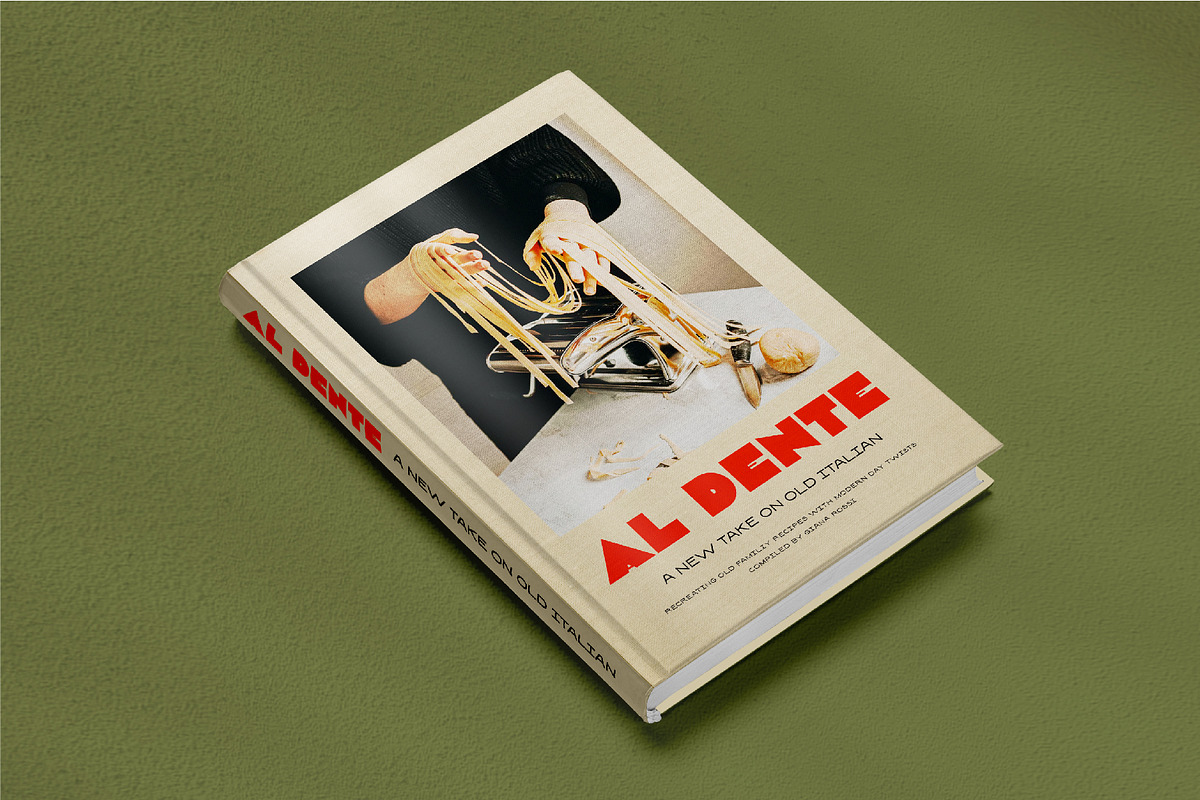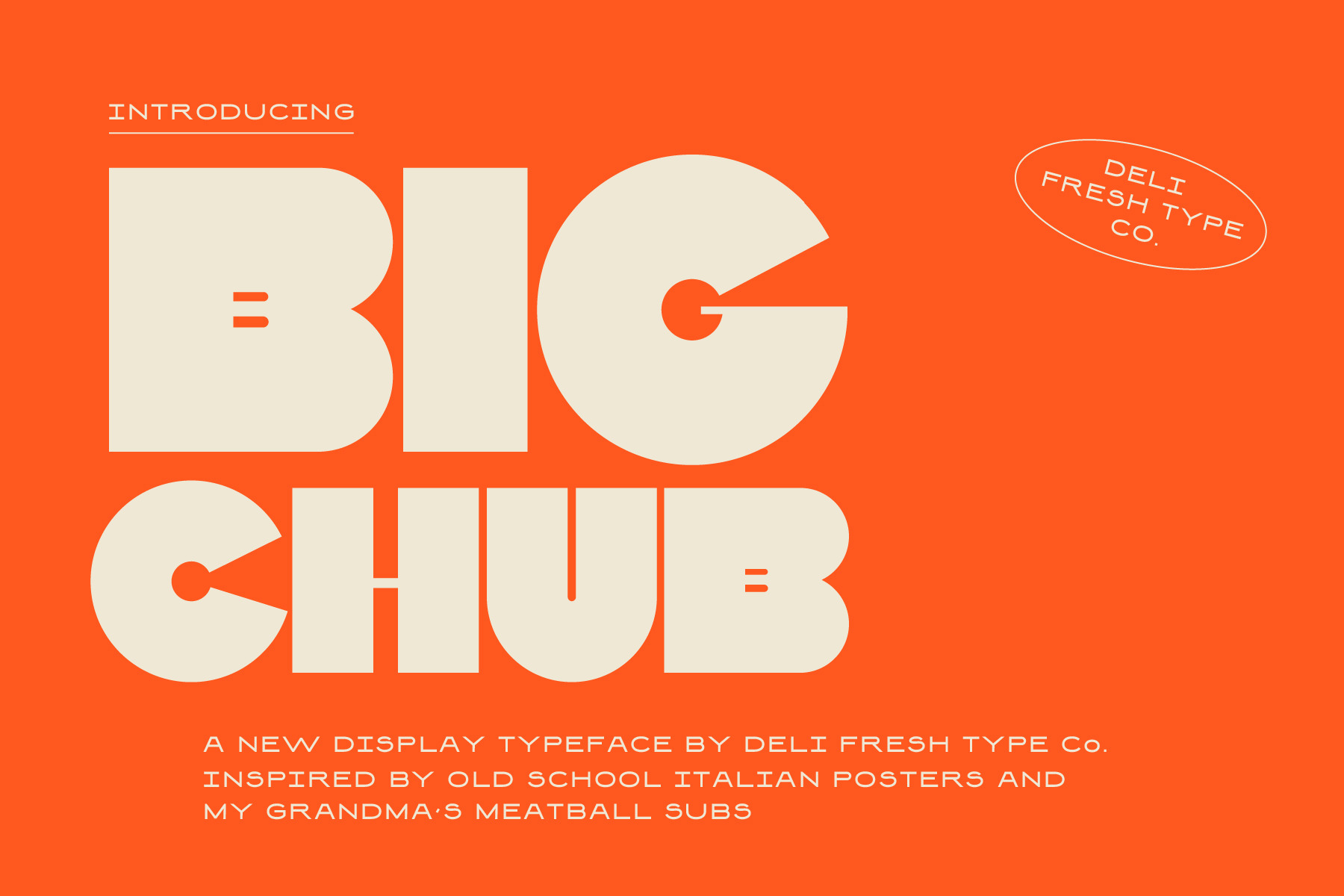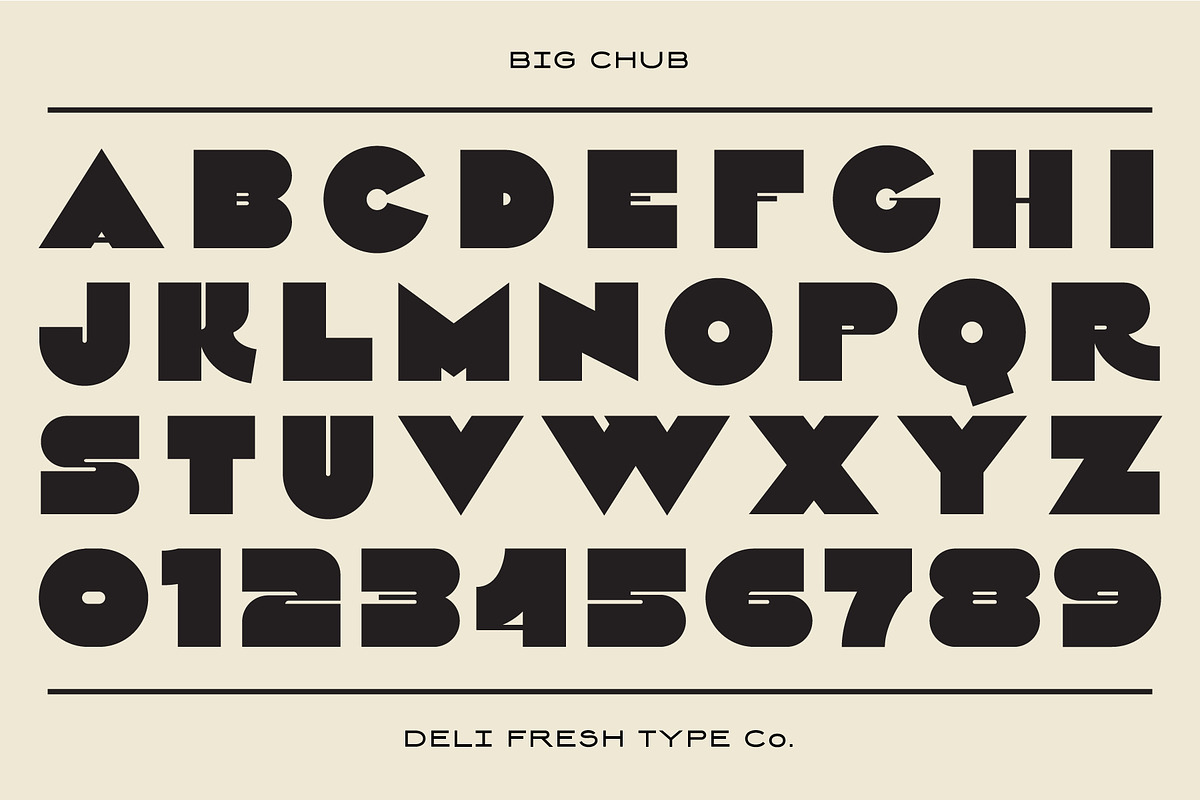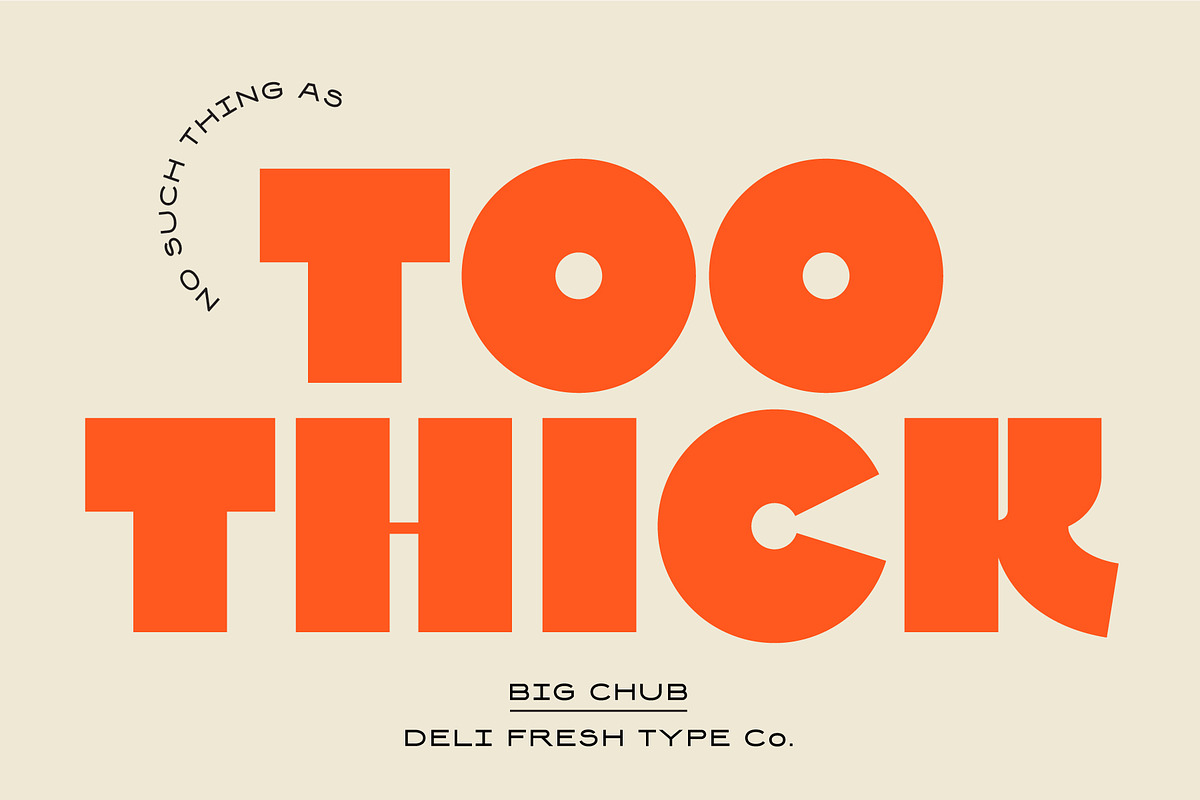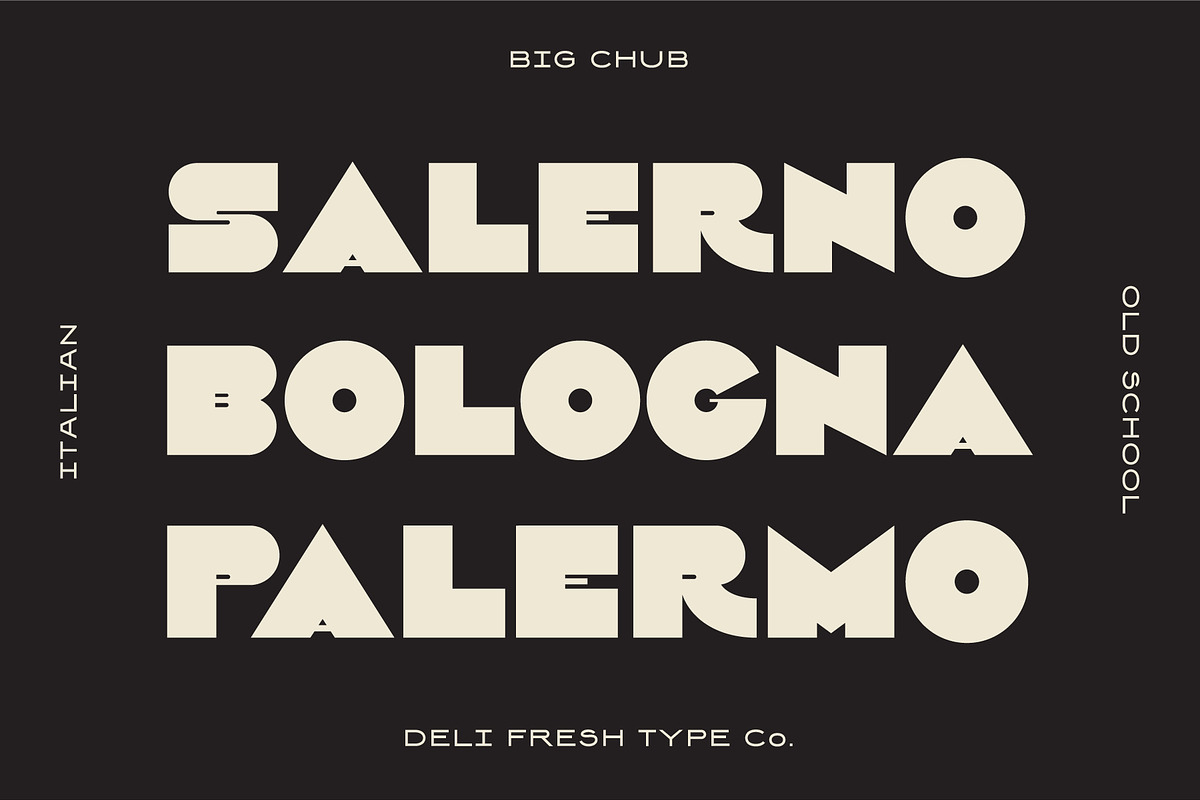
Big Chub: An Old School Italian Font
An extra heavy display typeface inspired by old school Italian advertising posters.
This hefty font comes with capitals, numerals, and a smattering of special characters.